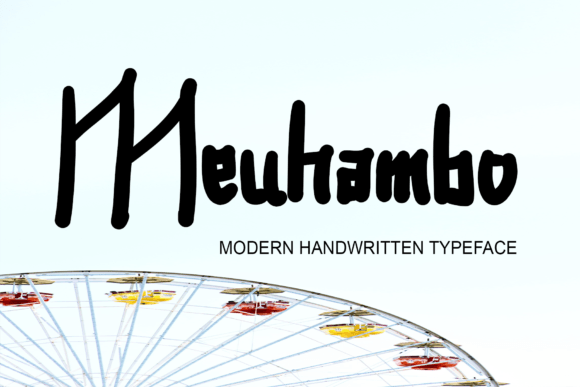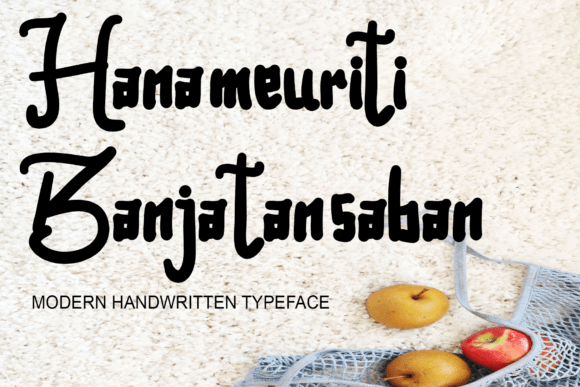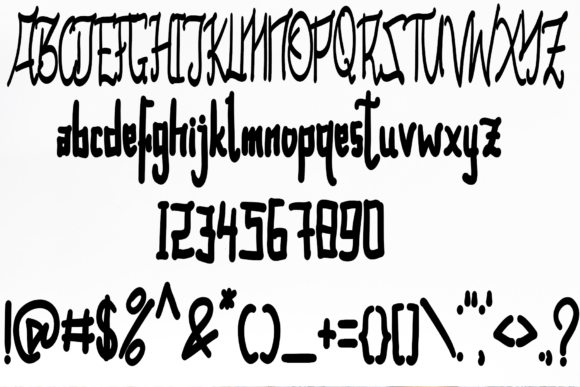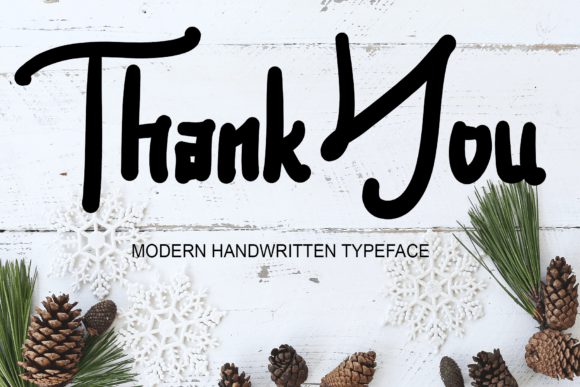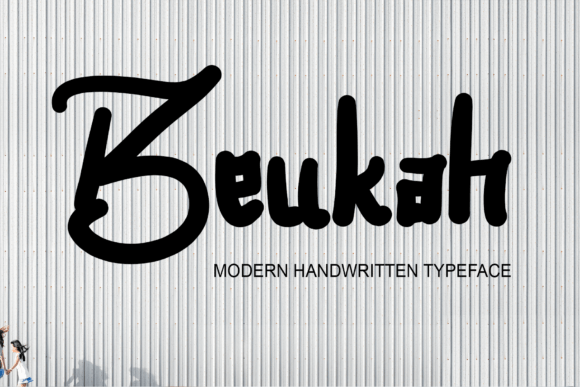
Introducing Beukah Font: The Bold and Cool Handwritten Font for Creative Minds
Are you tired of using the same old fonts in your creative projects? Do you want to add a touch of personality and uniqueness to your designs? Look no further than Beukah Font, a bold and cool handwritten font that’s sure to take your work to the next level. In this article, we’ll explore the features and benefits of Beukah Font, and show you how to make the most of this amazing font in your designs.
What is Beukah Font?
Beukah Font is a modern, handwritten font that’s perfect for designers, crafters, and anyone looking to add a personal touch to their work. With its bold and confident style, Beukah Font is ideal for a wide range of projects, from branding and advertising to packaging and digital media. Whether you’re creating a logo, a poster, or a social media graphic, Beukah Font is sure to make a statement.
Key Features of Beukah Font
So, what makes Beukah Font so special? Here are just a few of its key features:
- Bold and confident style: Beukah Font is a bold and attention-grabbing font that’s perfect for making a statement.
- Handwritten feel: With its unique, handwritten style, Beukah Font adds a touch of personality and warmth to any design.
- Versatile: Beukah Font is versatile and can be used in a wide range of projects, from digital media to print materials.
- Easy to read: Despite its bold style, Beukah Font is easy to read, making it perfect for body text as well as headlines.
How to Use Beukah Font in Your Designs
So, how can you use Beukah Font in your designs? Here are a few ideas to get you started:
- Branding and advertising: Use Beukah Font to create bold and eye-catching logos, ads, and marketing materials.
- Packaging design: Add a personal touch to your packaging designs with Beukah Font, perfect for product labels, tags, and more.
- Digital media: Use Beukah Font in your digital media projects, such as social media graphics, blog posts, and video titles.
- Crafting and DIY projects: Beukah Font is also perfect for crafters and DIY enthusiasts, adding a personal touch to handmade cards, gift tags, and more.
Tips and Tricks for Getting the Most Out of Beukah Font
Here are a few tips and tricks for getting the most out of Beukah Font:
- Experiment with different colors: Beukah Font looks great in a range of colors, so don’t be afraid to experiment and find the perfect hue for your design.
- Mix and match with other fonts: Beukah Font pairs well with a range of other fonts, so try mixing and matching to create a unique look.
- Use it sparingly: While Beukah Font is bold and attention-grabbing, it can be overwhelming if used too much. Use it sparingly to create a focal point in your design.
In conclusion, Beukah Font is a bold and cool handwritten font that’s perfect for designers, crafters, and anyone looking to add a personal touch to their work. With its unique style, versatility, and ease of use, Beukah Font is sure to become a staple in your design toolkit. So why wait? Add Beukah Font to your creative arsenal today and enjoy the results!